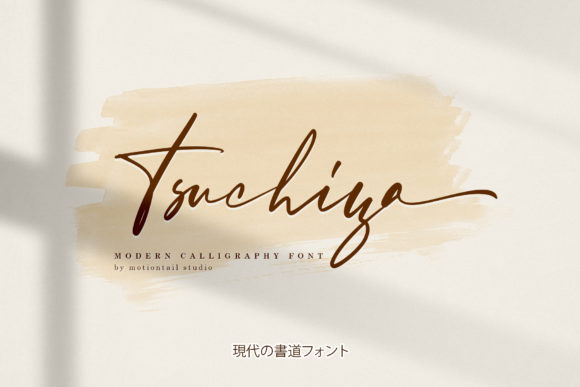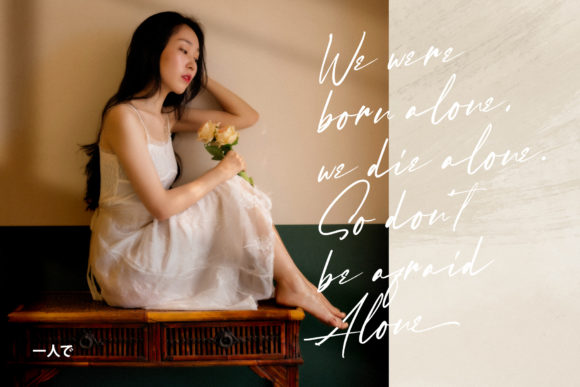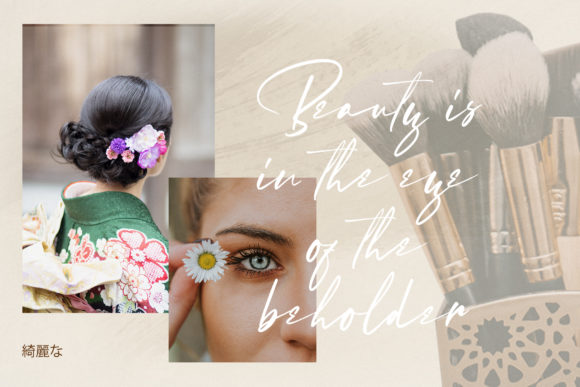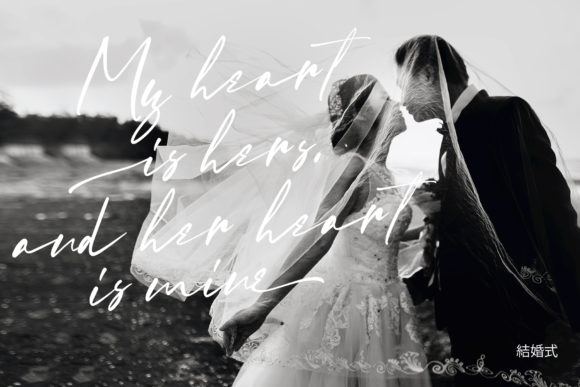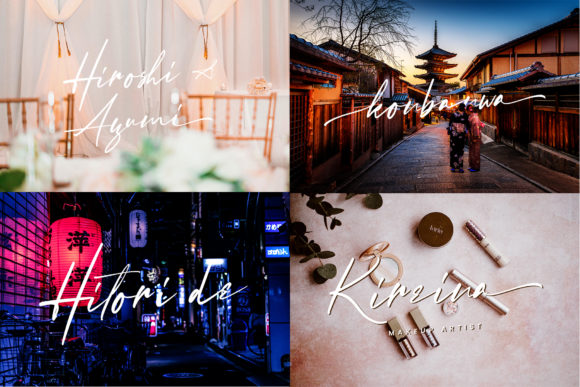
About Tsuchiya Font
Tsuchiya is an elegant script font with a contemporary atmosphere and impeccable form, inspired by timeless classic calligraphy. Not too thin and not too thick, balanced and varied, Tsuchiya was designed to enhance the beauty of your projects.